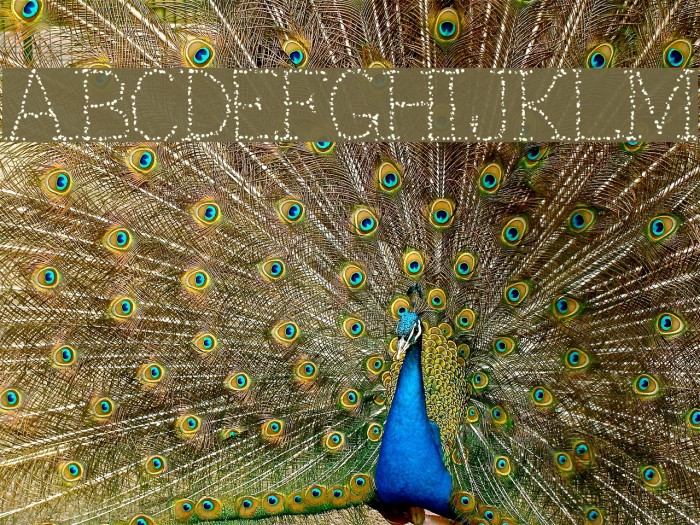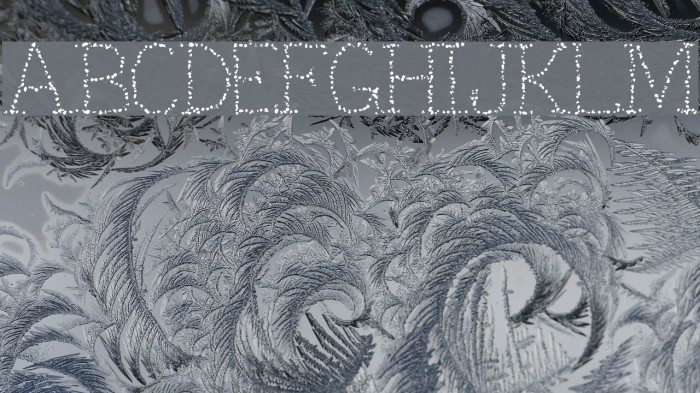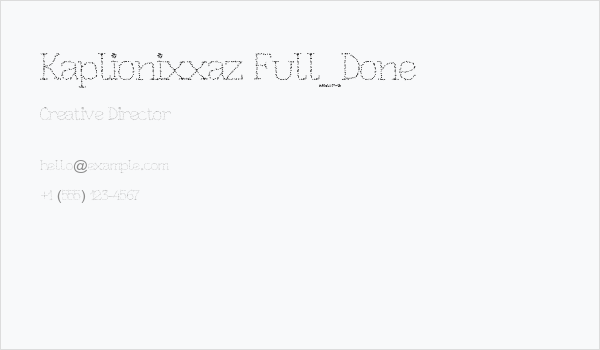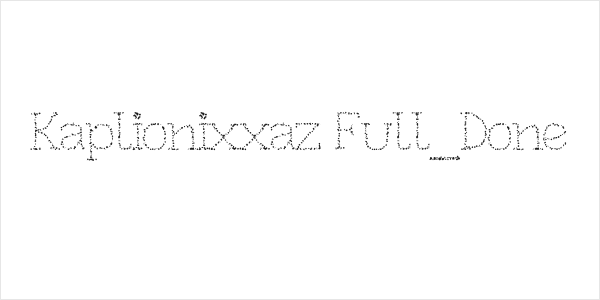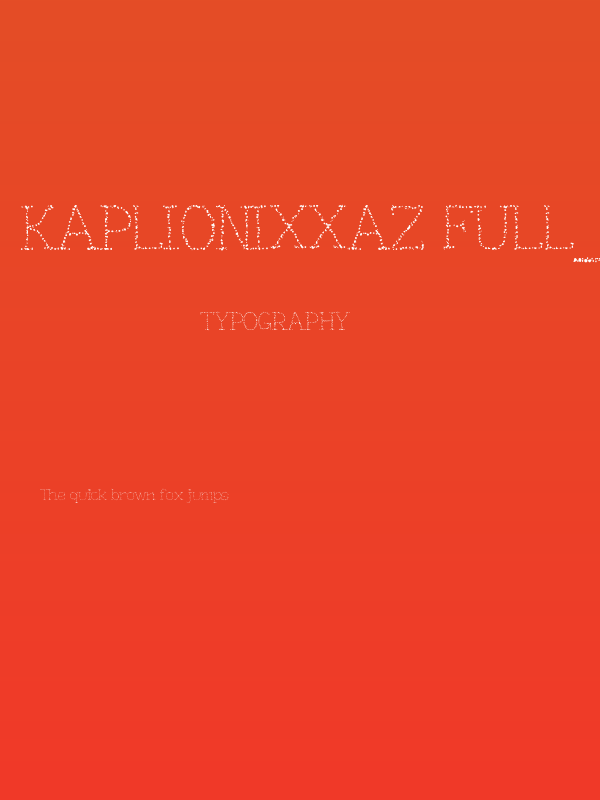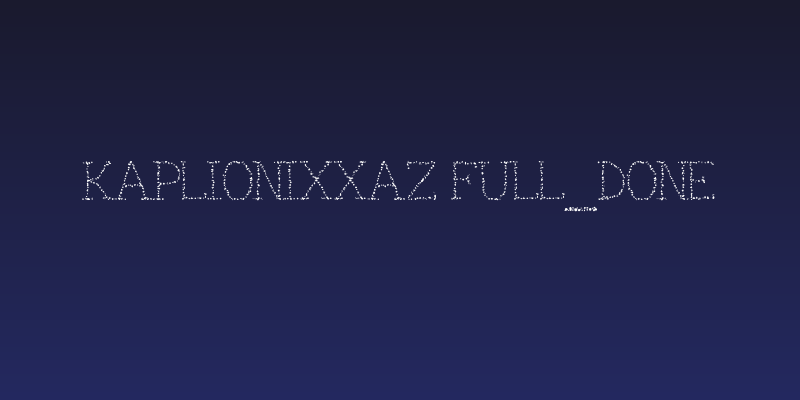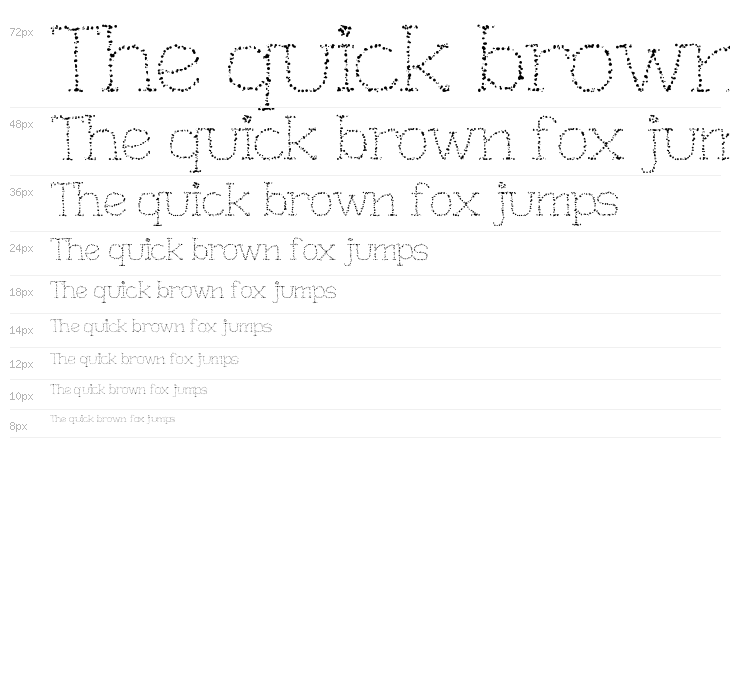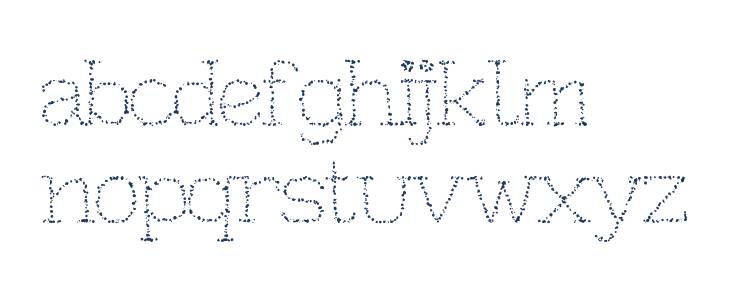
Kaplionixxaz Full_Done Font
Kaplionixxaz Full_Done Description
This font features a unique dotted design, where each character is composed of small, evenly spaced dots that form the outlines of letters and numbers. The uppercase and lowercase letters maintain a consistent style, with a playful yet structured appearance. The numbers and special characters follow the same dotted pattern, ensuring uniformity across all glyphs. This font's distinct style makes it stand out, offering a modern twist on traditional letterforms. The spacing between the dots is consistent, providing a cohesive look that is both decorative and readable.
| Proposed Projects | Ideal for creative projects such as children's books, playful branding, event invitations, and artistic posters. |